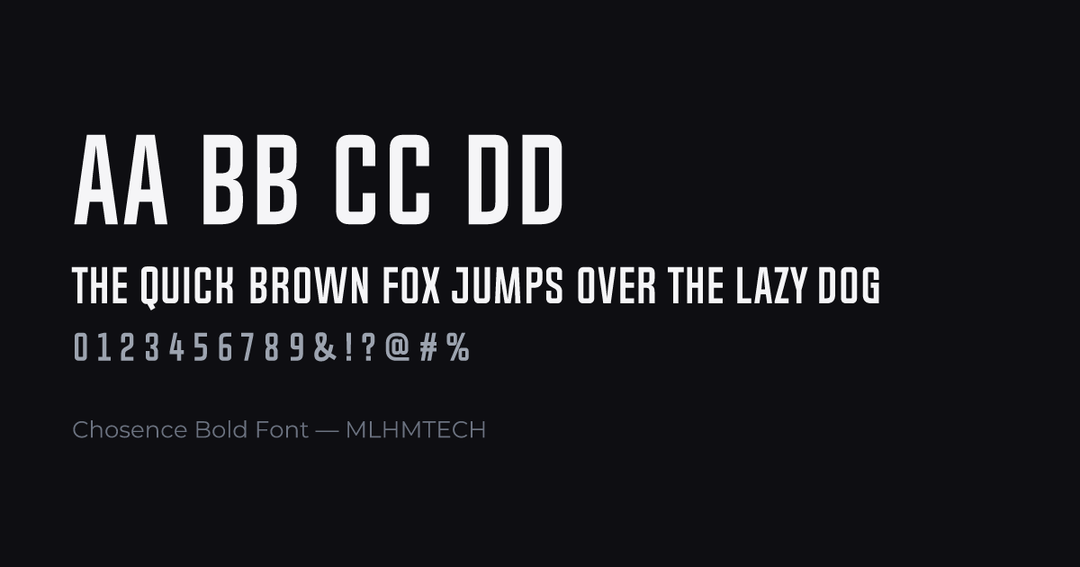
Chosence Bold Font
Chosence Bold is a modern sans-serif font with a clean, bold look, ideal for logos, headings, and branding.
Chosence Bold is a versatile sans-serif font that combines modern aesthetics with strong legibility. Its bold weight makes it perfect for headlines, titles, and any design that needs to make a statement. The font's clean lines and geometric shapes give it a contemporary feel that works well in both digital and print media.
Use it for branding projects, advertising, packaging, and more. Its versatility makes it a valuable addition to any designer's toolkit.